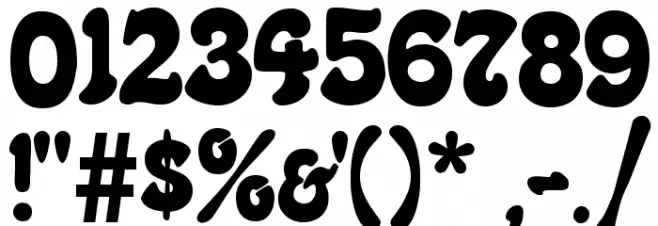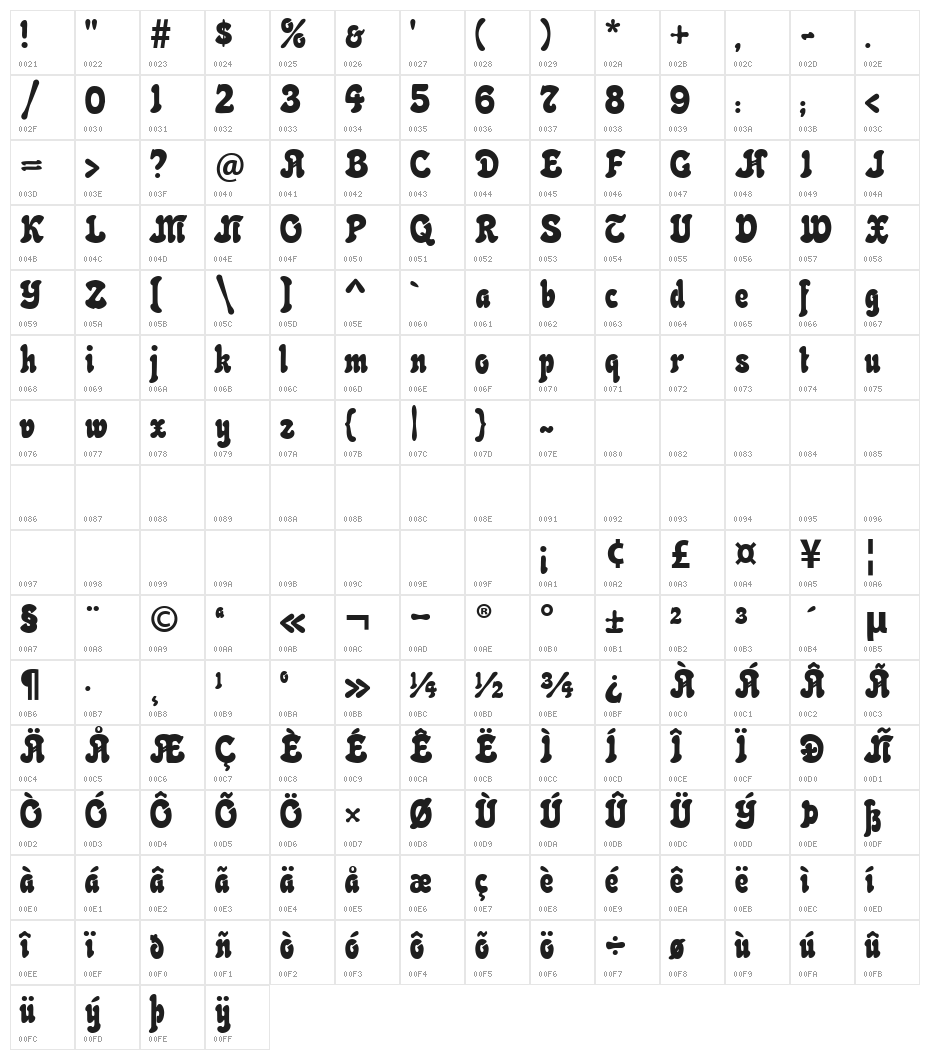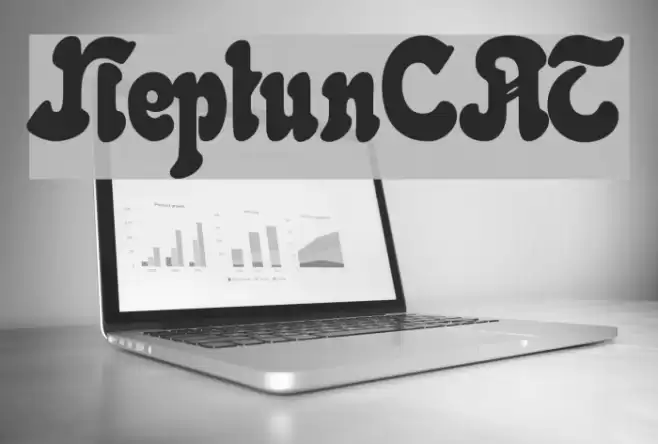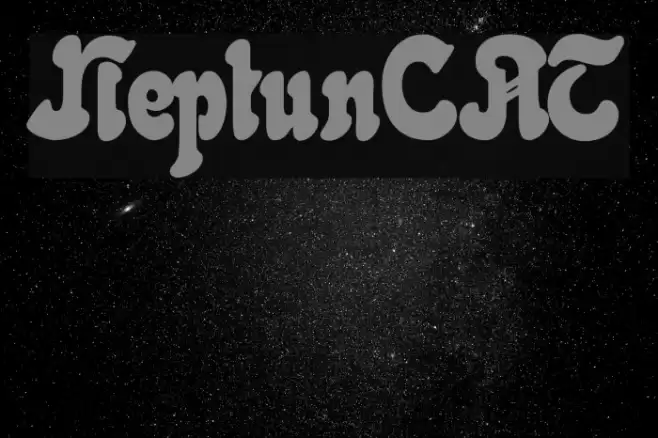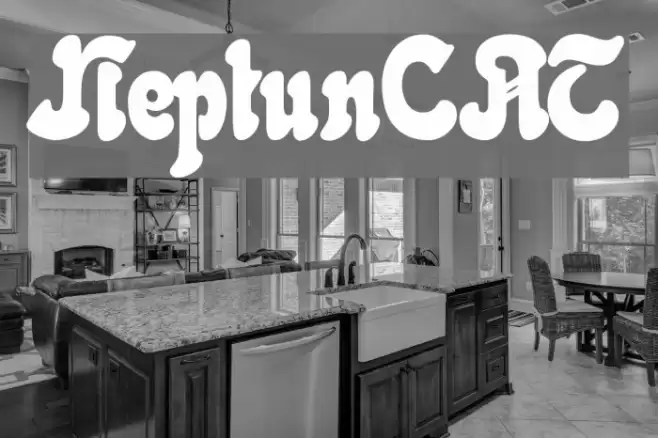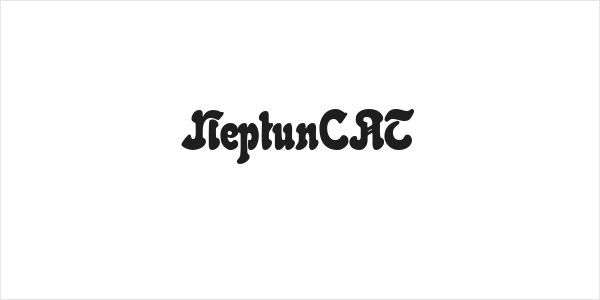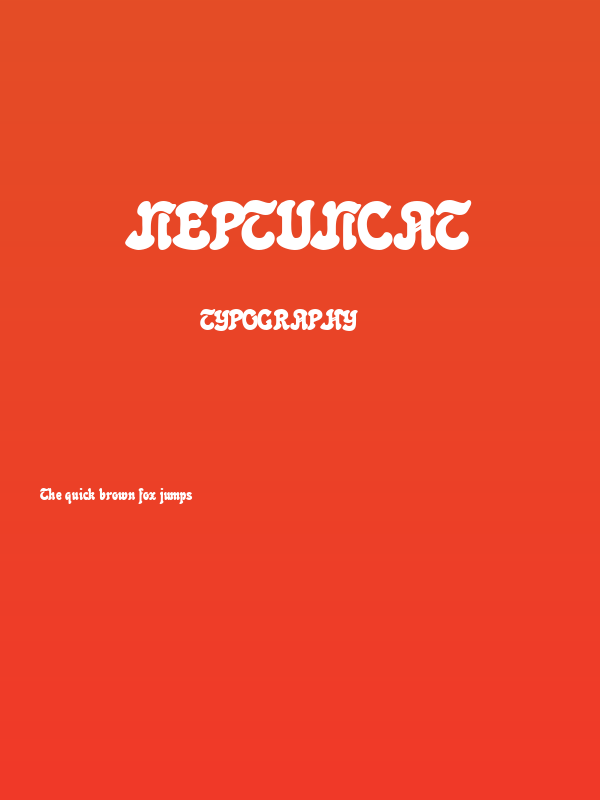
NeptunCAT Font
NeptunCAT Description
This font is a bold and playful typeface with a unique, rounded style that features thick, curvy strokes. The characters are designed with a whimsical flair, giving them a lively and dynamic appearance. The uppercase and lowercase letters maintain a consistent weight, creating a harmonious look across the alphabet. The numbers and special characters are equally bold, ensuring readability and visual impact. This font's distinctive style makes it stand out, with its high contrast and wide character spacing adding to its charm. It's perfect for projects that require a fun and engaging aesthetic.